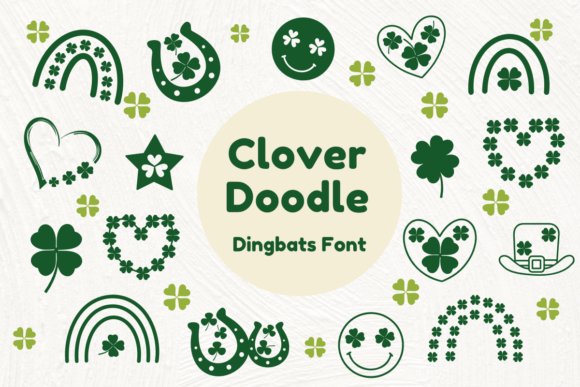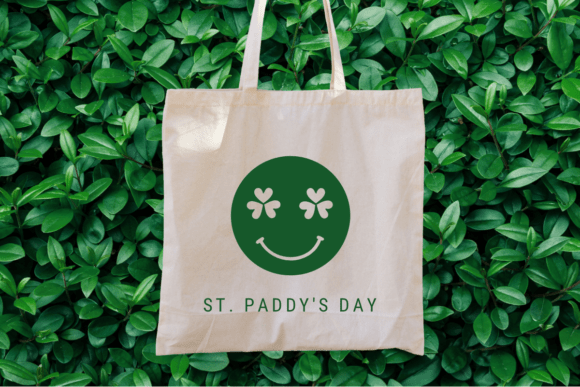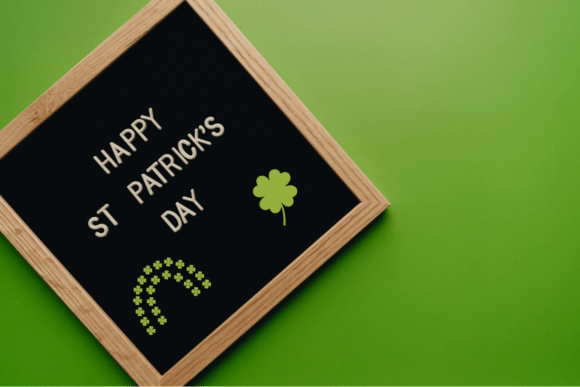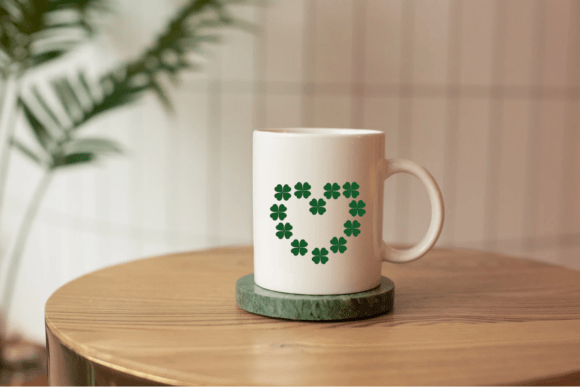
Clover Doodle Font
About the Clover Doodle Font
The wait is over! The incredible Clover Doodle Font is now available for your design toolkit. Clover Doodle is a dingbats font with a sketched theme. This font can enhance your creative projects such as wedding invitations, DIY, crafts, decorations, logos, and many other creative ideas.
Clover Doodle’s sketched style works best for headlines, logos, short text blocks on packaging, and craft-related projects. Its hand-drawn quality adds a charming, whimsical touch, ideal for branding emphasizing handmade goods or a playful, youthful aesthetic. Avoid using it for body text or lengthy paragraphs; its informal nature and irregular character spacing will hinder readability.
The font’s inherent personality is friendly and approachable. To complement this, pair Clover Doodle with a clean sans-serif like Open Sans for body text, providing a contrast of formal and informal. Alternatively, a classic serif such as Playfair Display could offer a more elegant counterpoint for sophisticated applications.
For a bolder statement, consider pairing with a geometric sans-serif font like Montserrat, creating a modern, yet playful juxtaposition. Avoid pairing it with other highly decorative or script fonts which would create visual clutter.
Clover Doodle Font Usage Examples
Clover Doodle Font Example